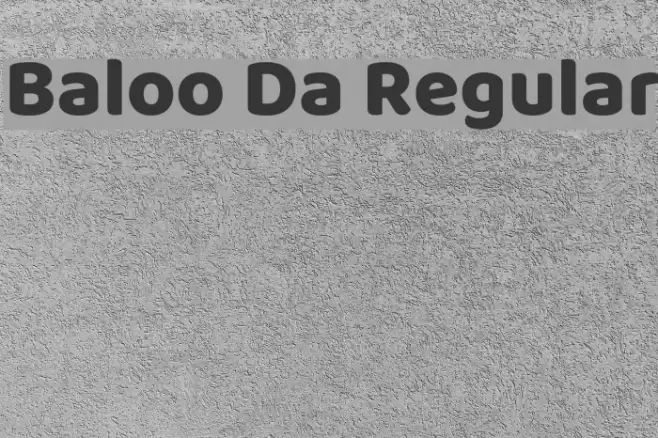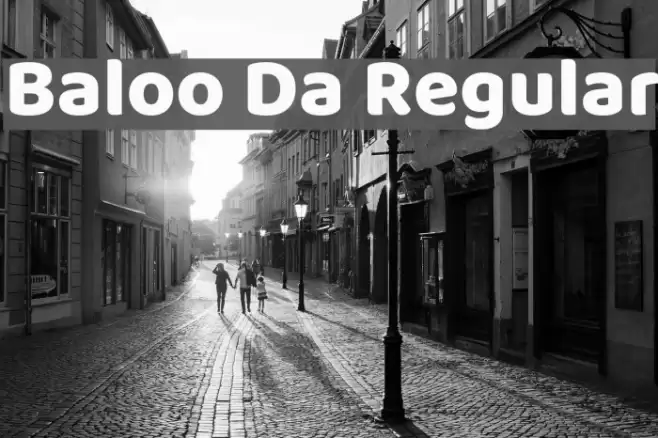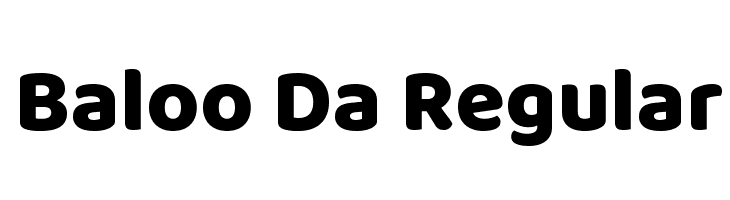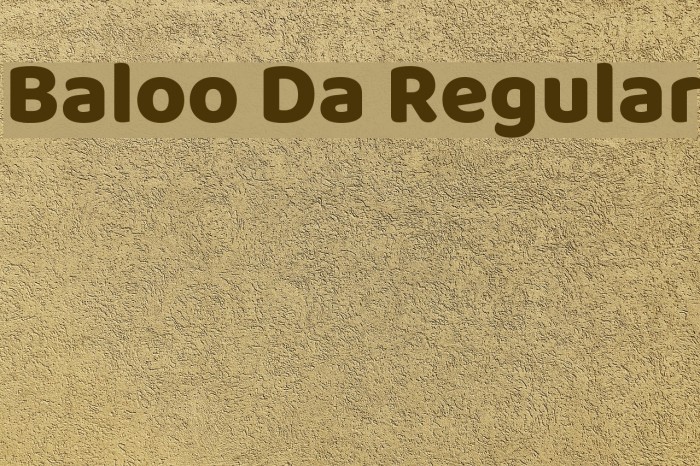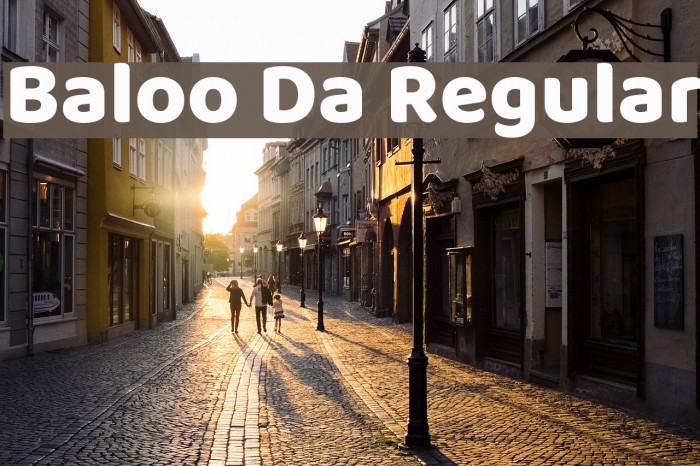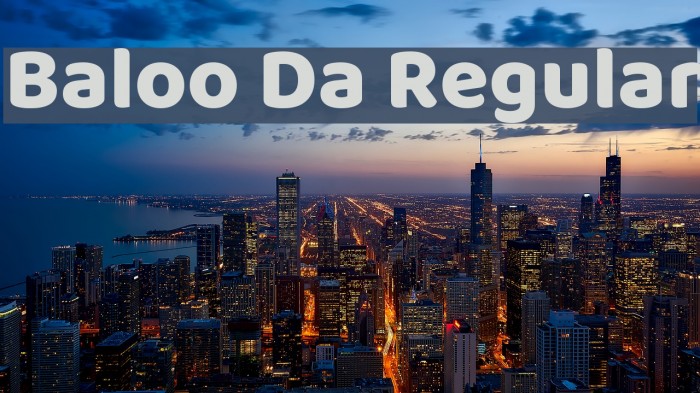
This font features a playful and rounded design, characterized by its bold and friendly appearance. The letters are thick and have a smooth, uniform stroke width, giving it a modern and approachable feel. The rounded edges and lack of sharp angles contribute to its inviting and casual style, making it suitable for a variety of informal applications. The font maintains a consistent weight throughout, ensuring readability and visual balance. It includes a full set of uppercase and lowercase letters, numerals, and a variety of special characters, providing versatility for different design needs.
A playful, rounded font with a bold and friendly appearance from Uncategorized fonts.
- Proposed Projects: Ideal for children's books, playful branding, casual invitations, and social media graphics.
- Use Case: Headlines, Logos, Informal Text